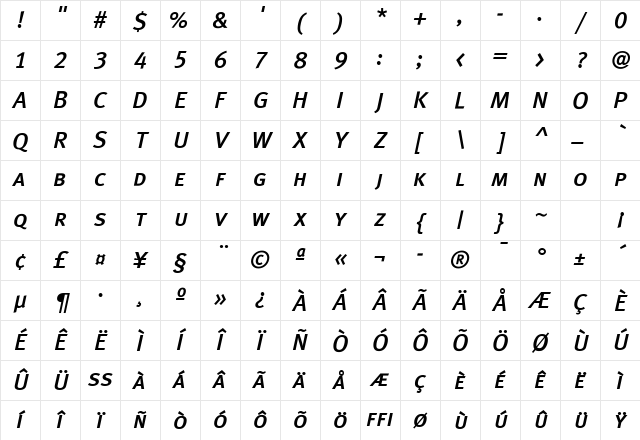
MetaPlus Medium Italic
Foundry: Copr.MetaDesign Plus GmbH
Complete MetaPlus Medium Italic glyph index. Displaying only characters natively supported by MetaPlus Medium Italic font.
Design Context for MetaPlus
MetaPlus is a composed and adaptable typeface that performs quietly and consistently across a wide range of design contexts. The slanted form adds forward momentum and visual energy.